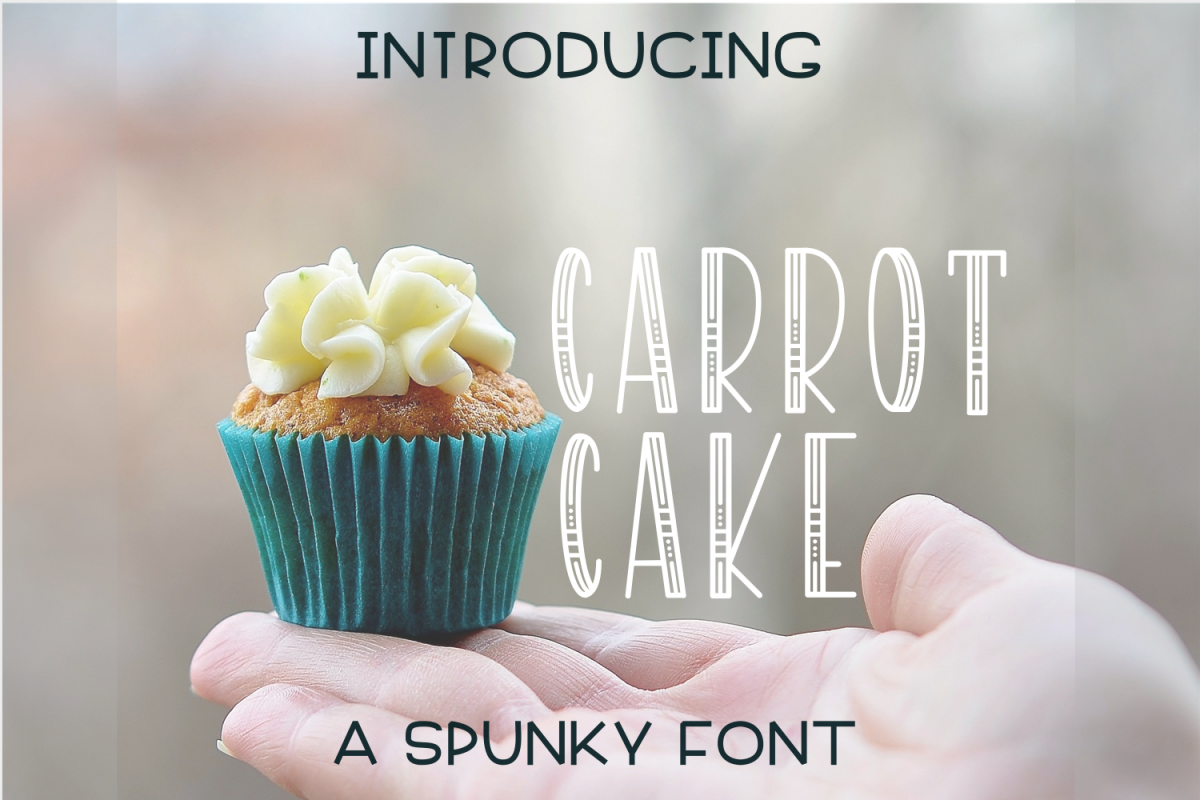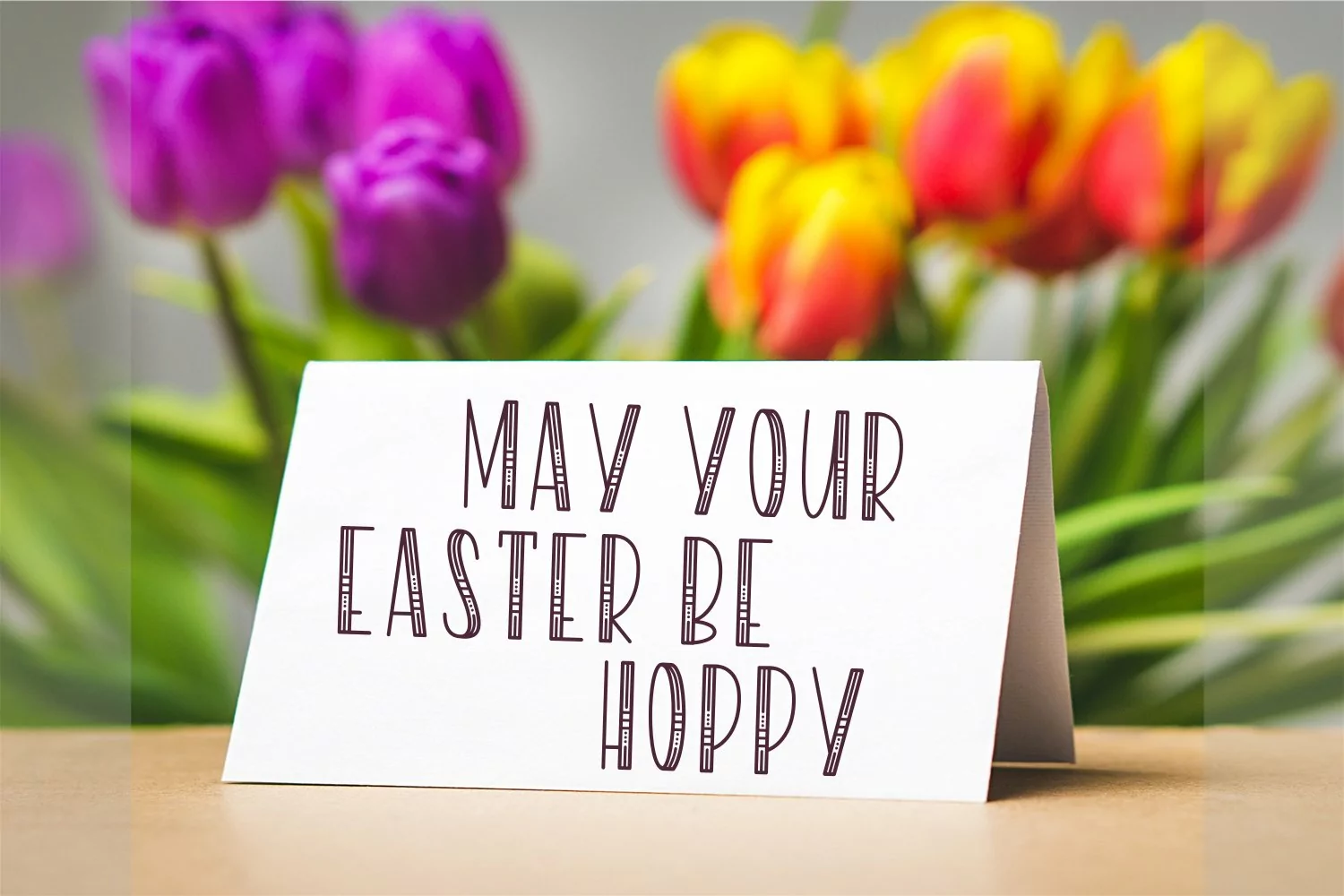
Carrot Cake is a silly font with dots and lines, alternating by case. It's perfect for designs that stand out- and it pairs well with other fonts! Includes TTF & OTF versions.